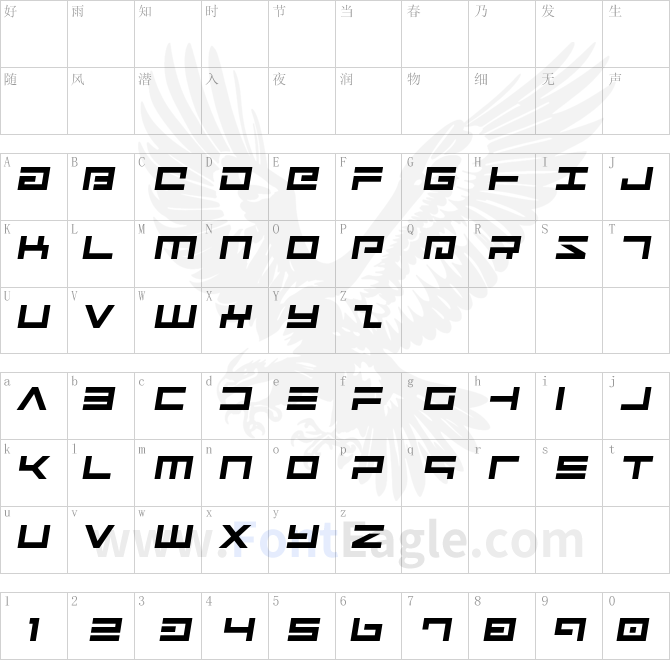
- Font name:Avenger Semi-Italic
- Font Subfamily:Semi-Italic
- Font Subfamily ID:Avenger Semi-Italic: 2016
- Font Full Name:Avenger Semi-Italic
- Font Version:Version 2.0; 2016
- Postscript:AvengerSemi-Italic